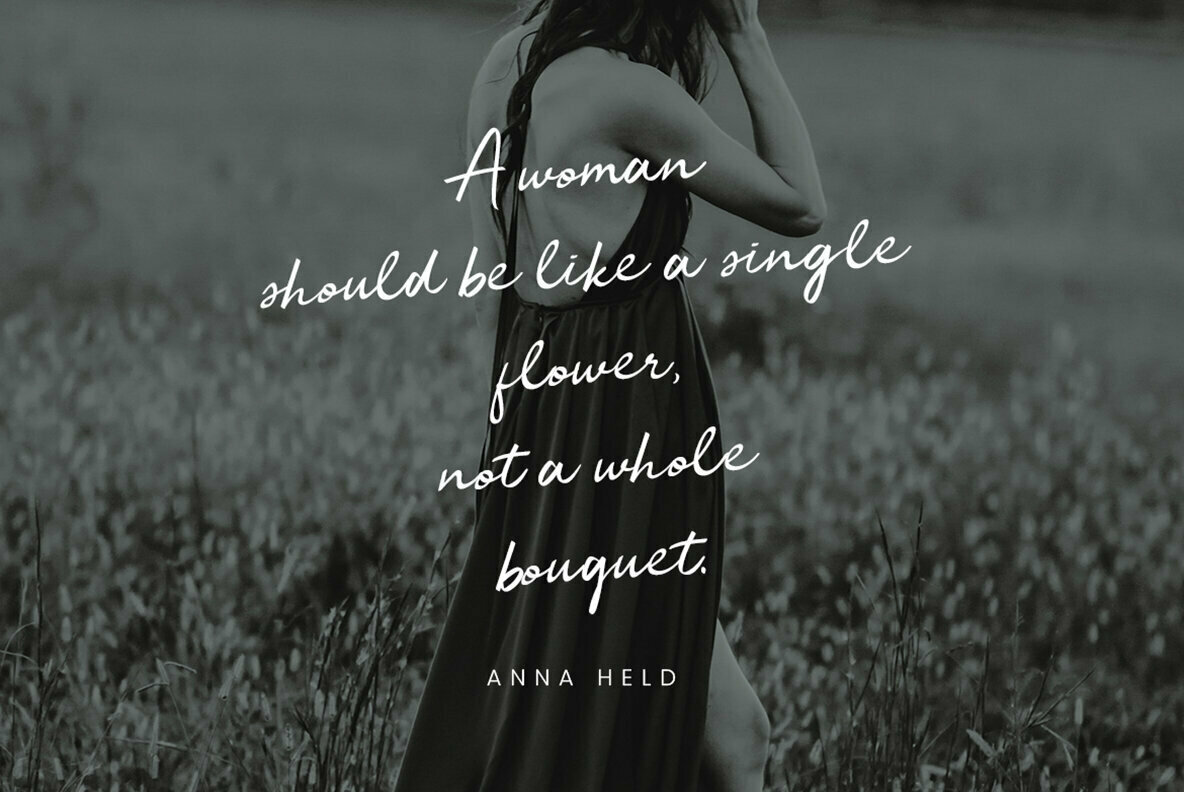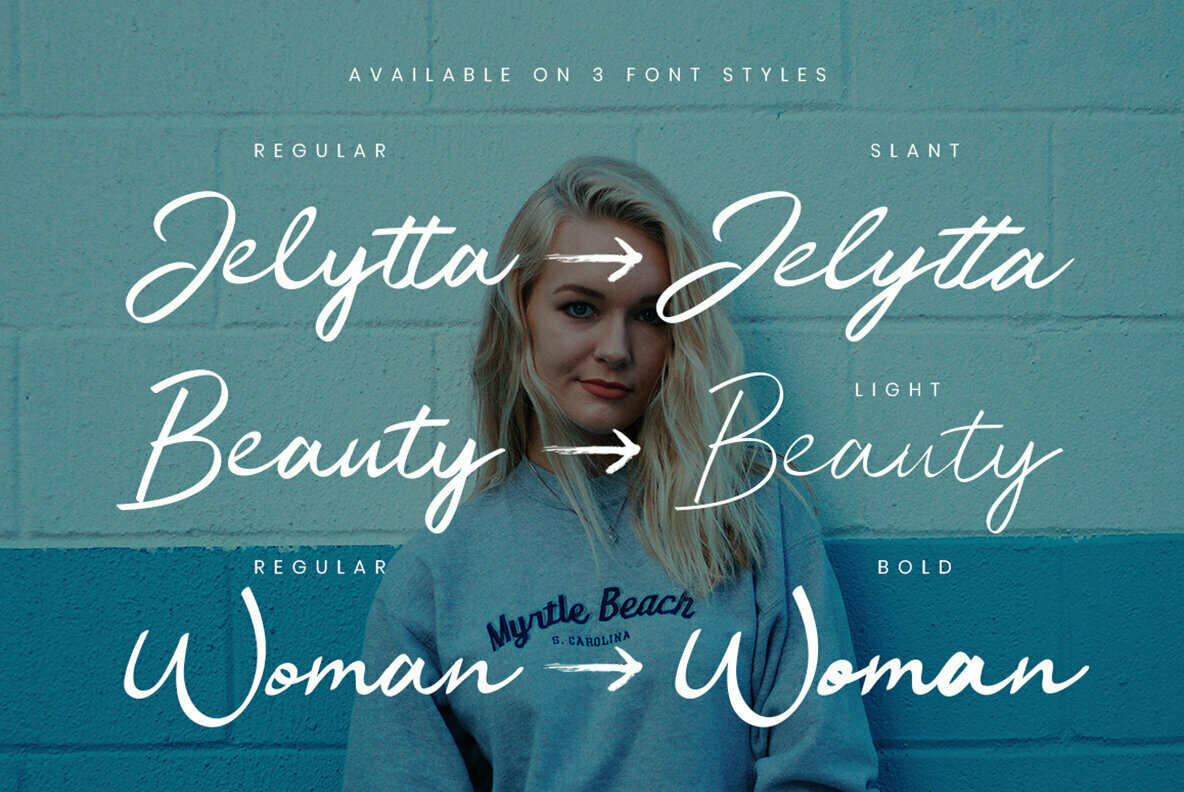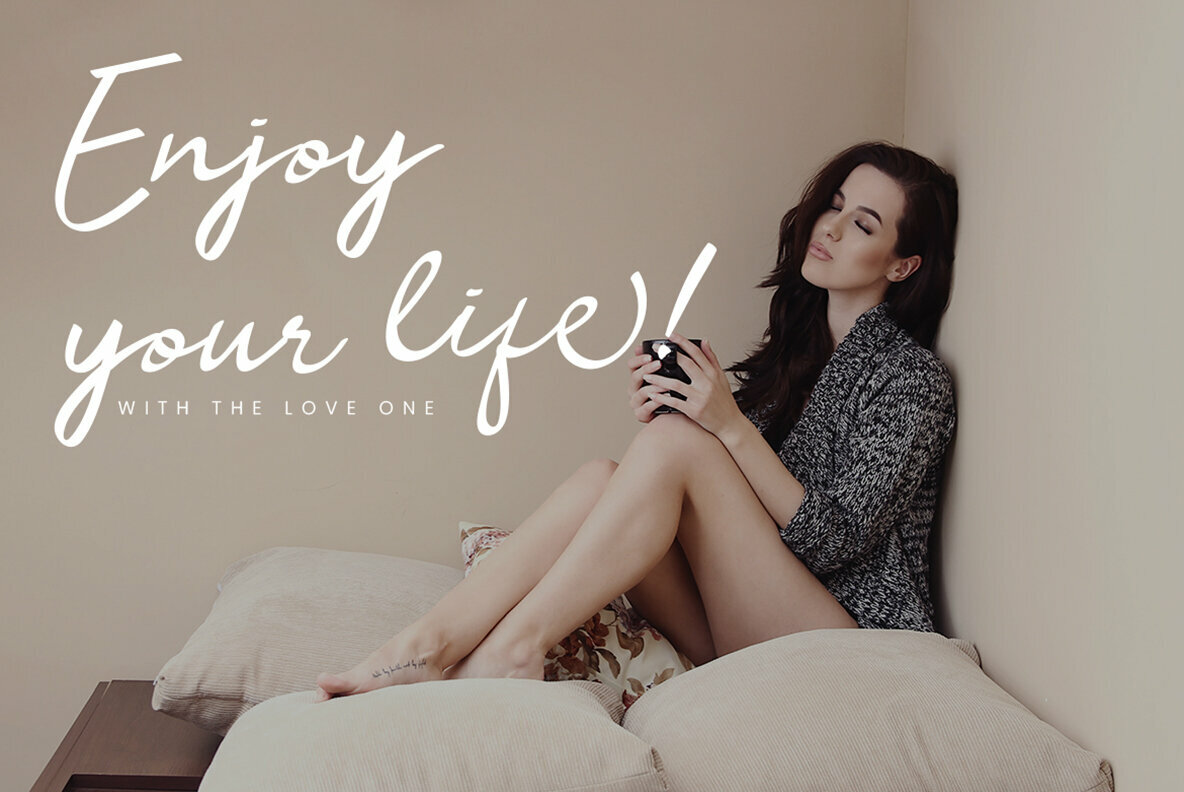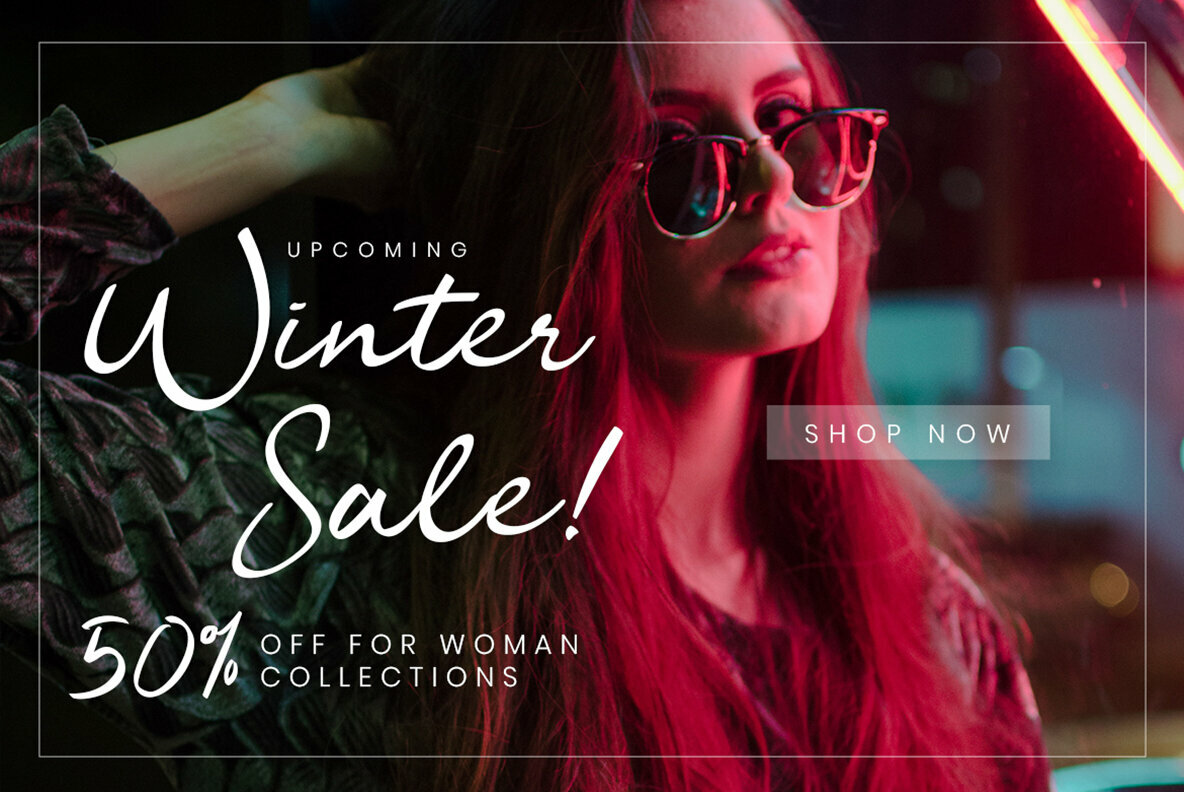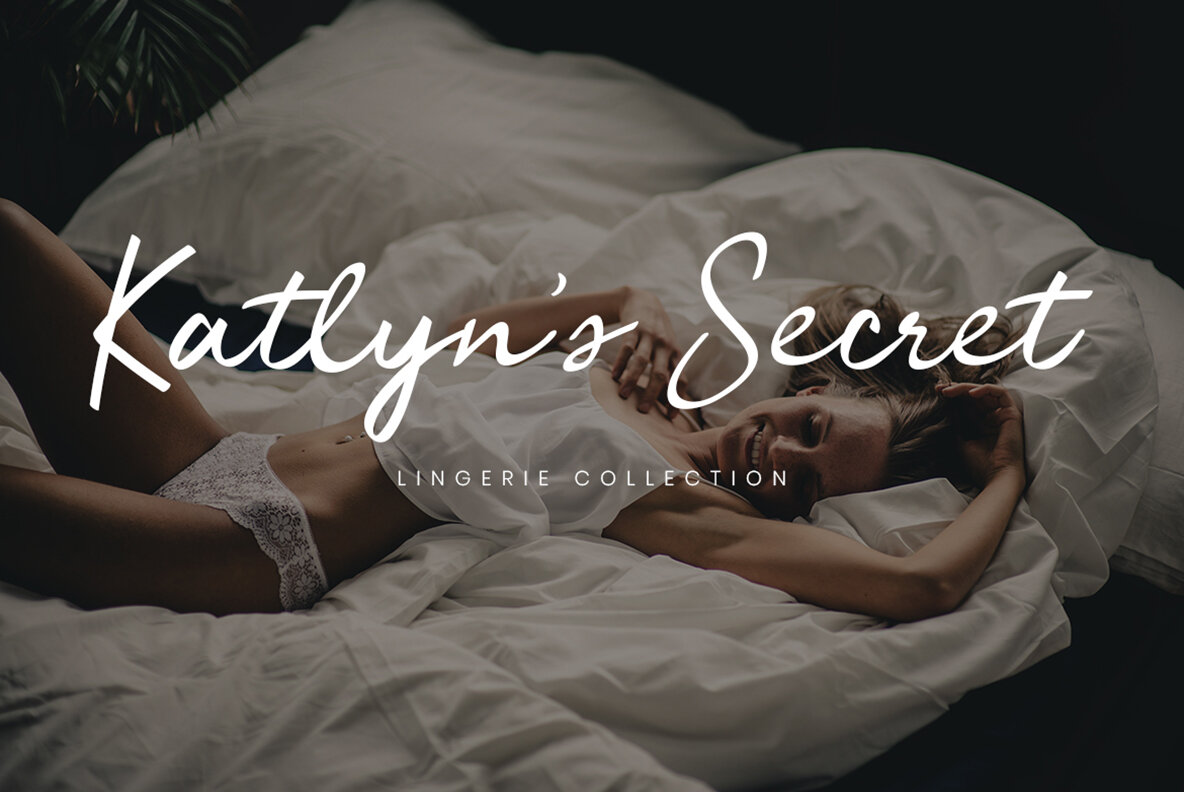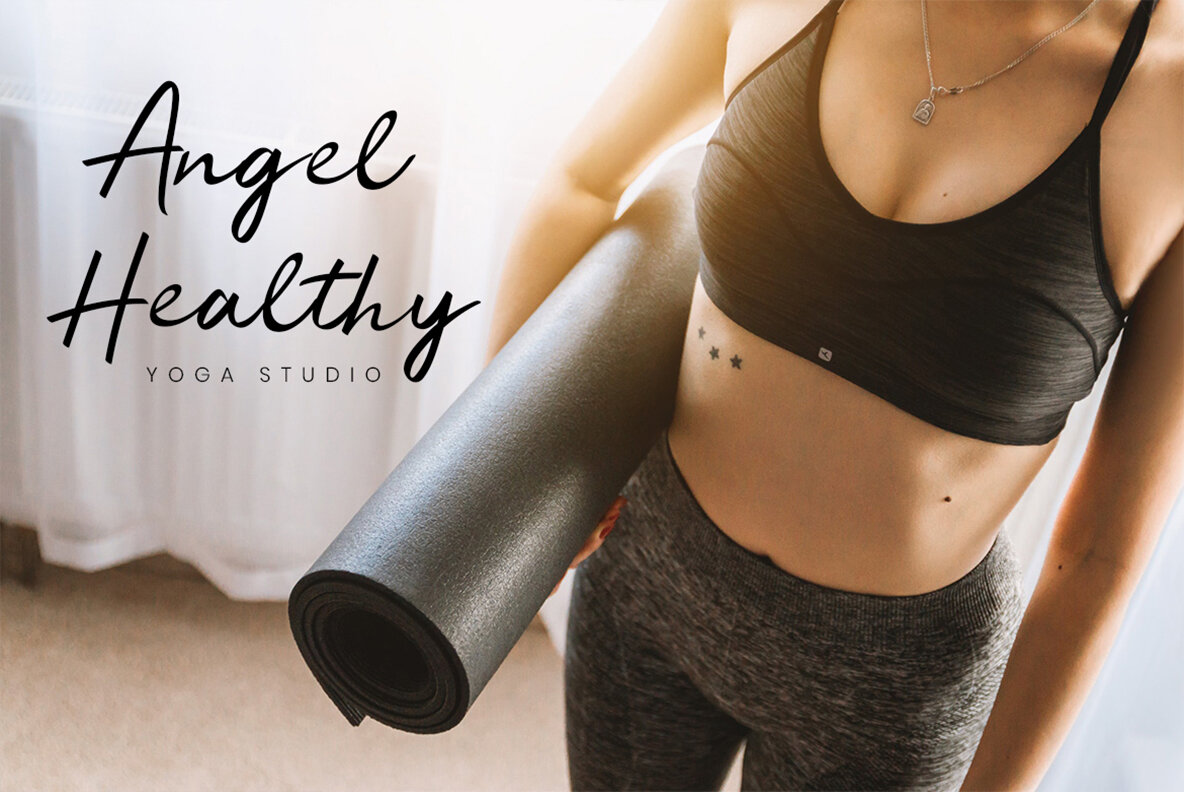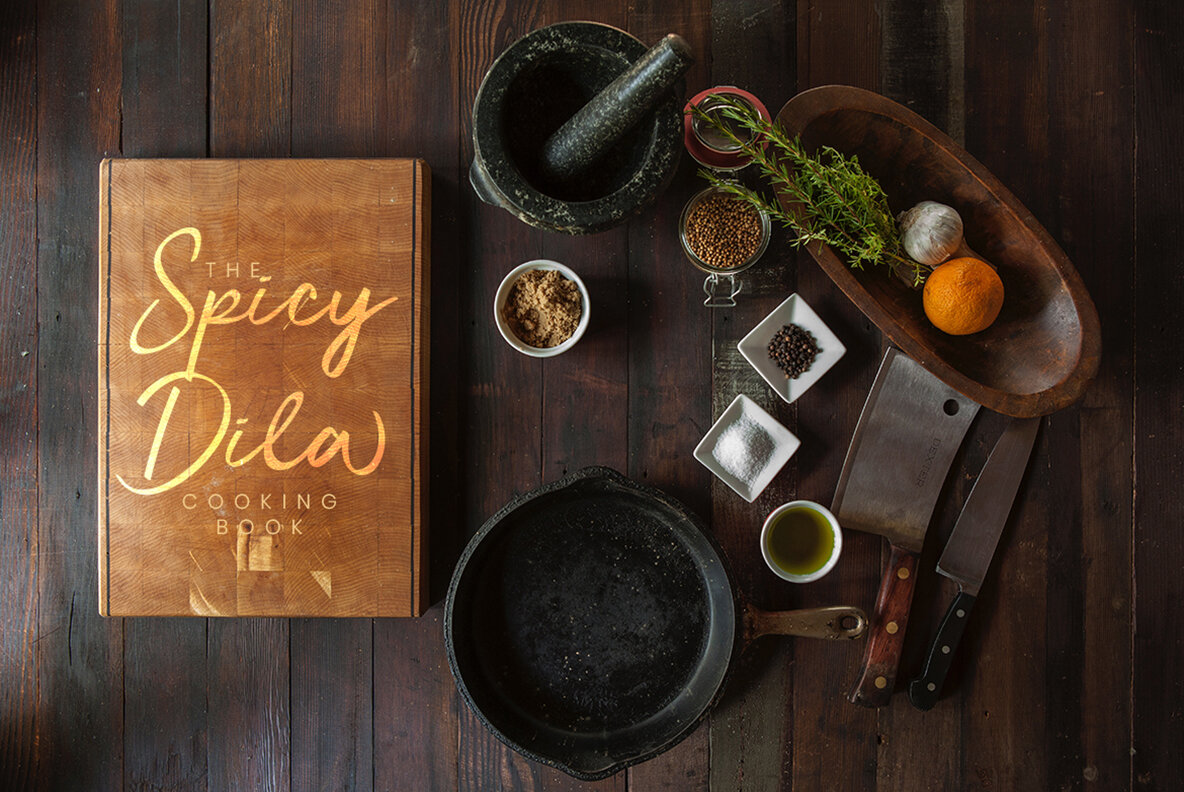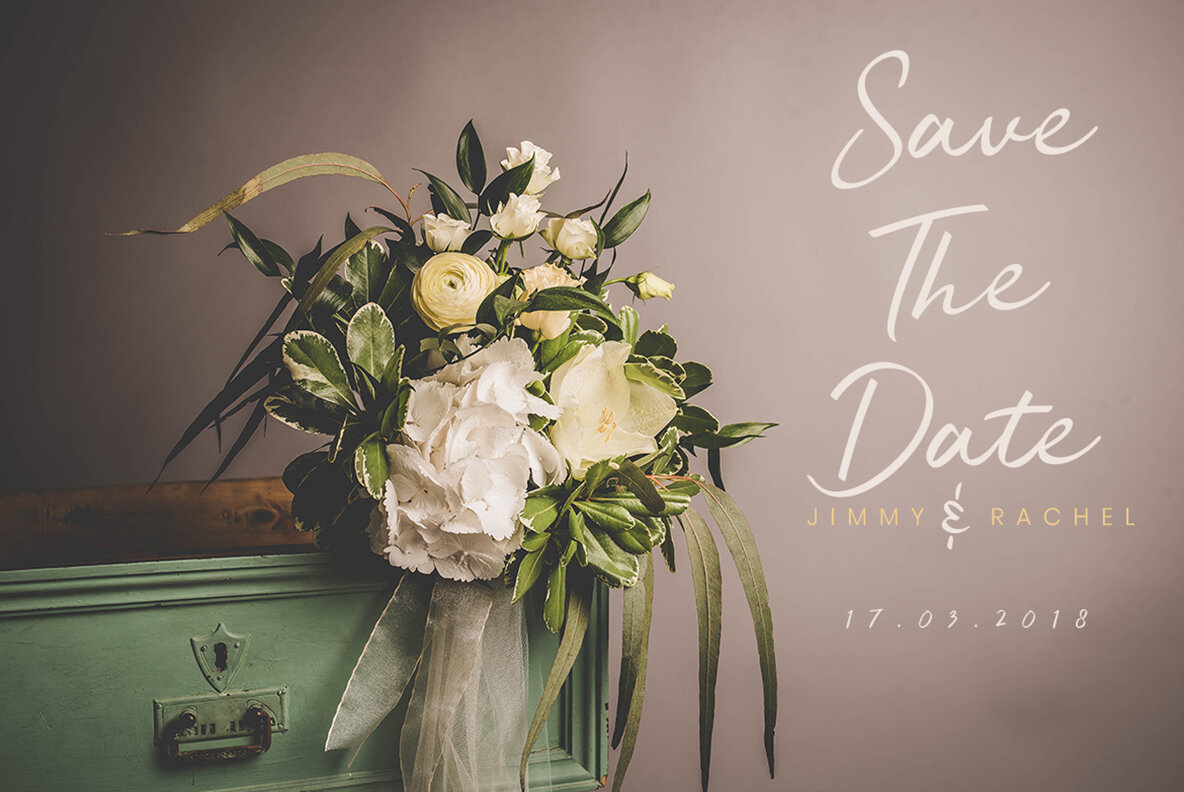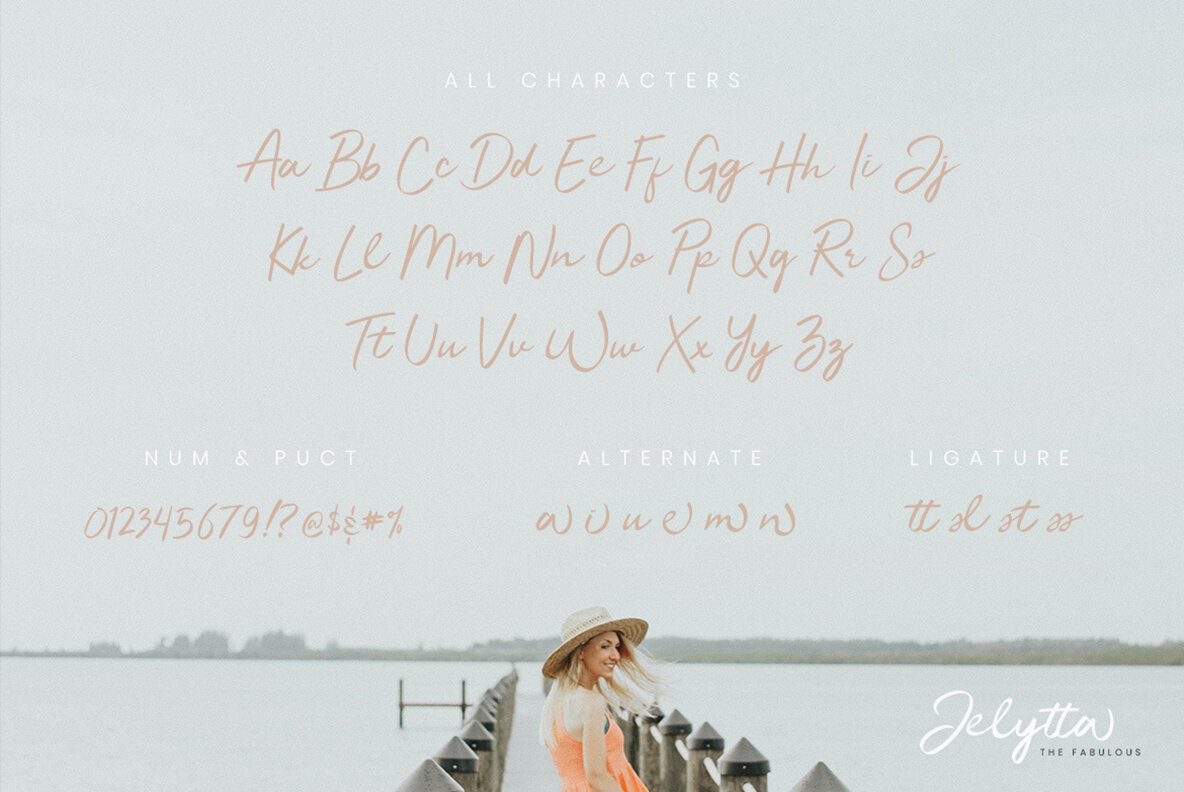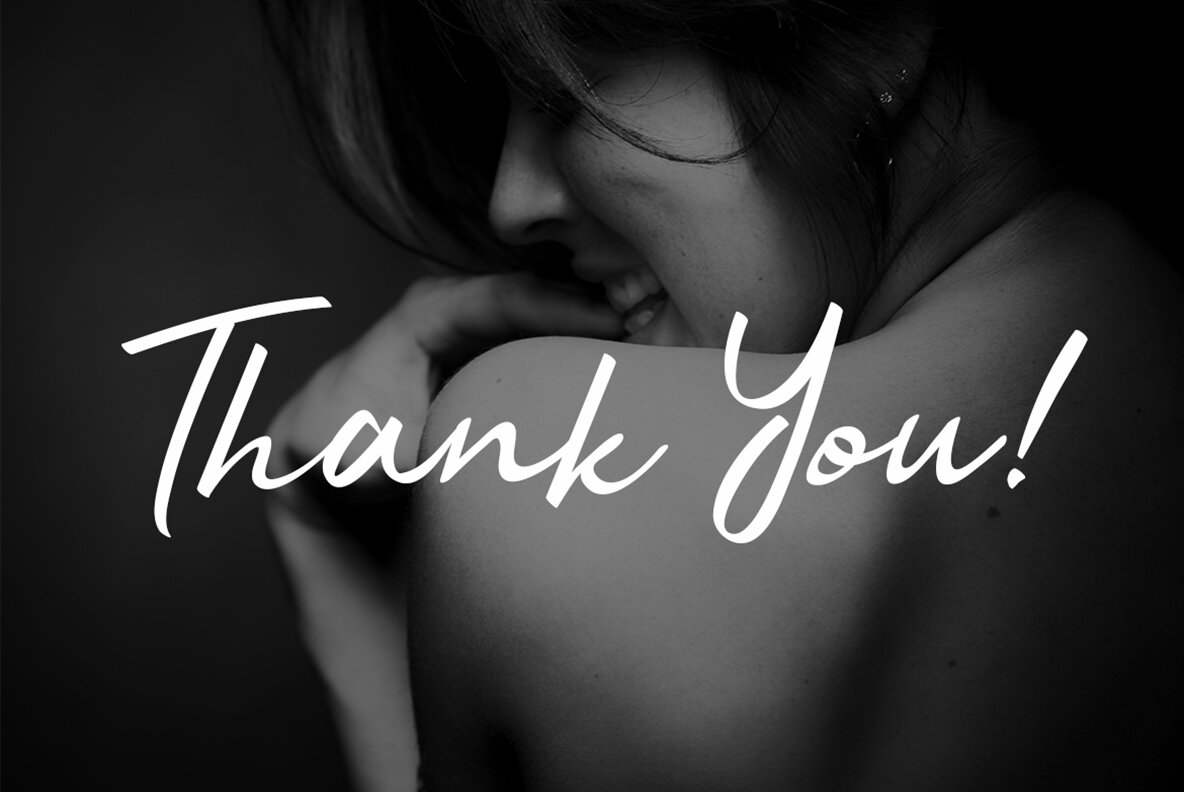
Jelytta Font
Jelytta Light
Jelytta
Jelytta Bold
Jelytta Slant
Inspired by the grace and elegance of womanhood, Jelytta embodies sophistication through its delicate curves and refined style. Its gentle lines and elegant formation make it an ideal choice for projects aiming for a fabulous and polished appearance. Jelytta offers a touch of elegance to any design, ensuring your project stands out with a sense of class and finesse.Jelytta: A Sophisticated and Classy Type